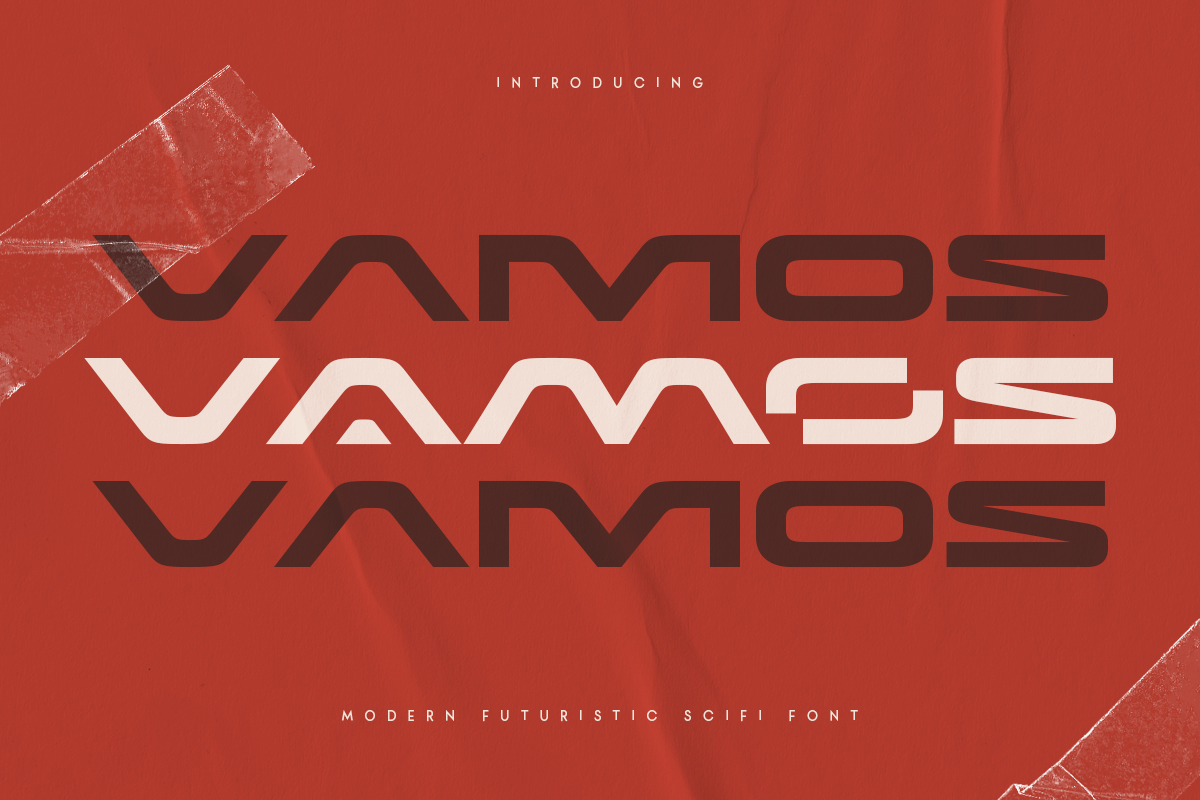
VAMOS - Modern Futuristic Scifi Font
Transform your tech projects with VAMOS, the futuristic sci-fi font designed for maximum visual impact. VAMOS delivers cutting-edge typography specially crafted for sci-fi, modern technology, and standout design needs. With its extra-perfect styling, this font brings a distinctly futuristic edge to your creative projects. Perfect for cryptocurrency branding, technology headlines, film titles, and sci-fi themed designs. The modern aesthetic and technology-inspired feel make it ideal for any proje...